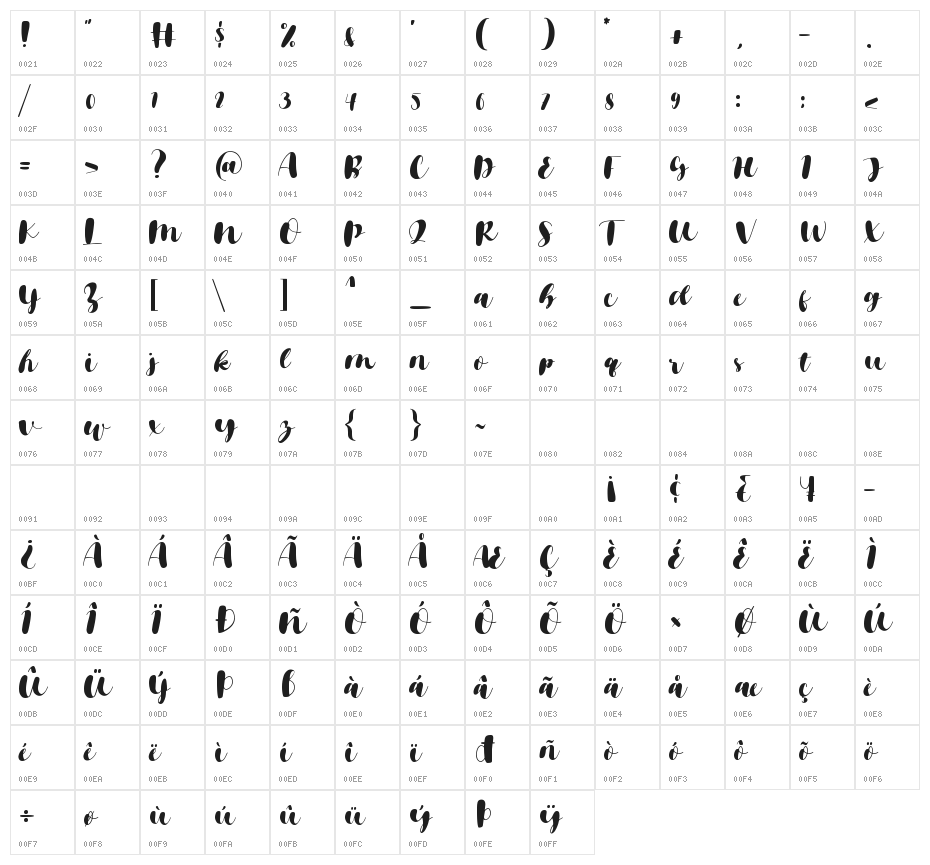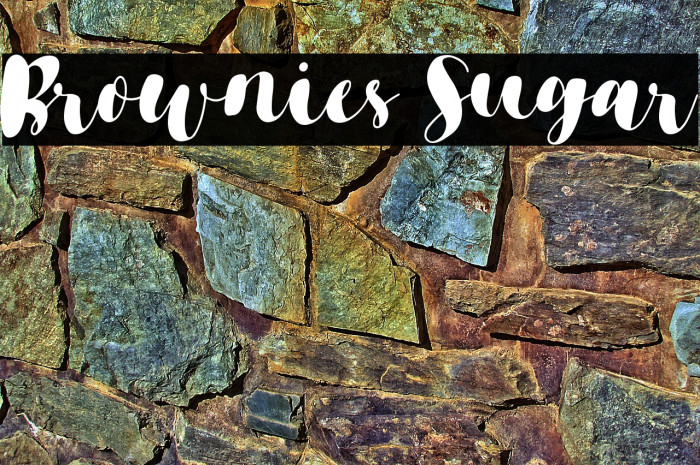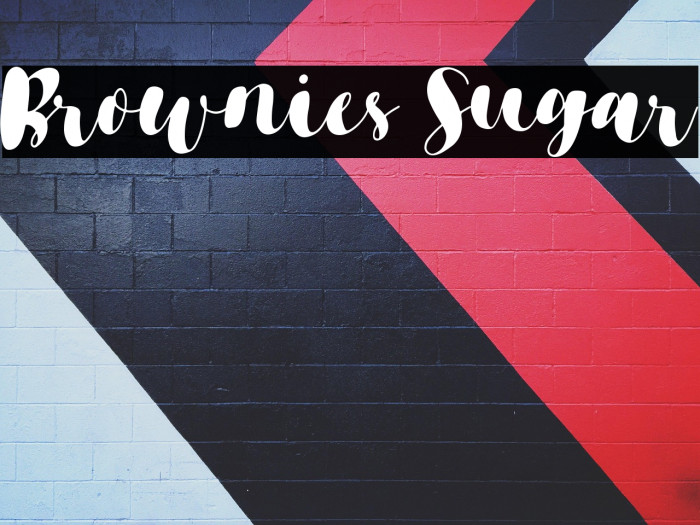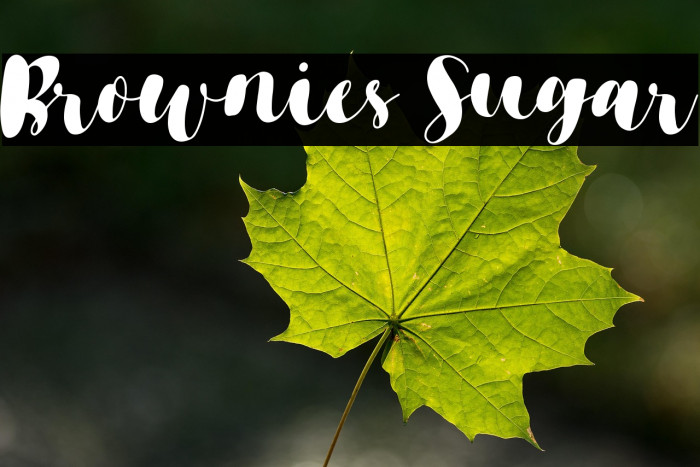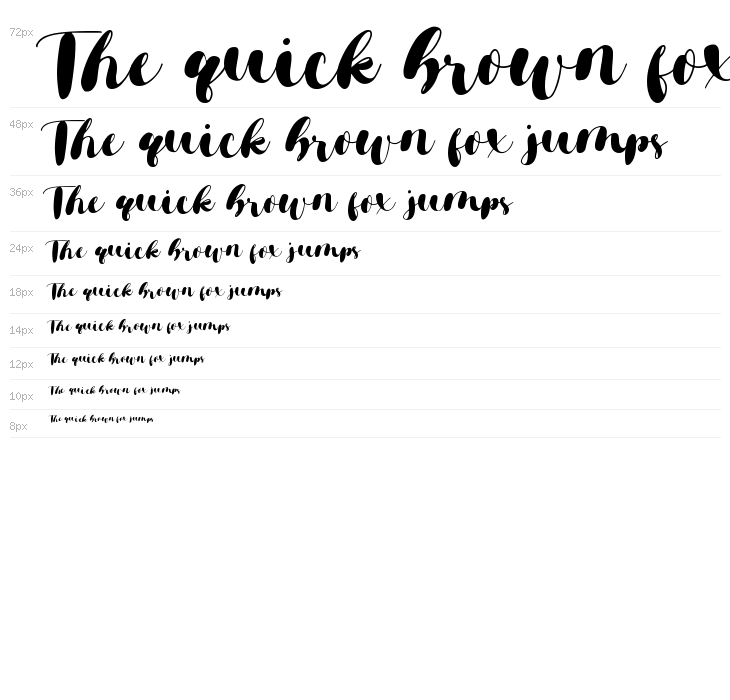
Brownies Sugar Font
Brownies Sugar Description
This font features a bold and flowing script style, characterized by its elegant and smooth curves. The letters are connected in a cursive manner, giving it a handwritten appearance. The uppercase letters are prominent and stylish, while the lowercase letters maintain a consistent flow. Numbers and special characters are designed to match the overall aesthetic, with a playful yet sophisticated look. The font's thick strokes and rounded edges contribute to its friendly and approachable feel, making it suitable for creative and decorative uses.
Use CaseLogos, Headlines, Invitations
Proposed ProjectsIdeal for wedding invitations, greeting cards, branding, and logo design.